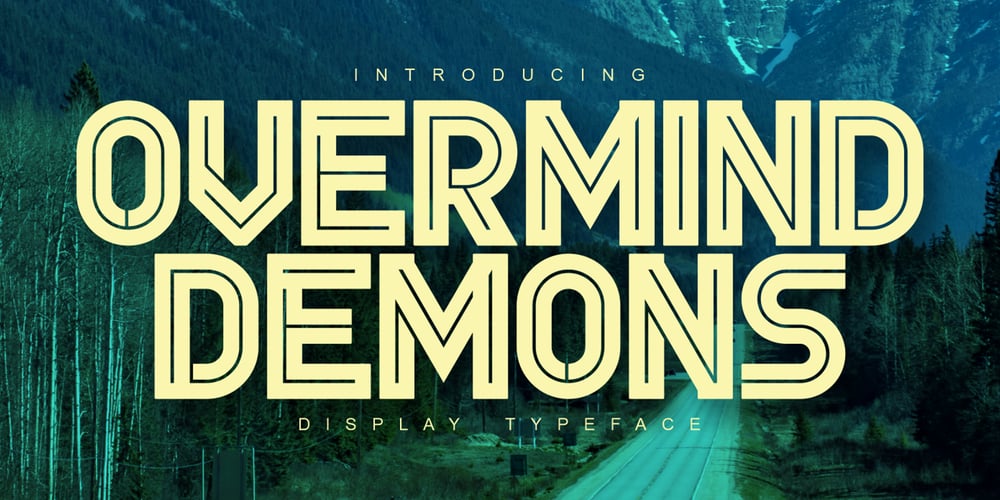
Overmind Demons Font Family was designed by Sipanji and published by Sipanji21. Overmind Demons contains 1 styles and family package options. “Overmind Demond” is a striking display font designed with a futuristic theme in mind. Its sleek and modern letterforms exude a sense of technological advancement and innovation, making it a perfect choice for a wide array of design projects centered around futuristic concepts or space exploration.